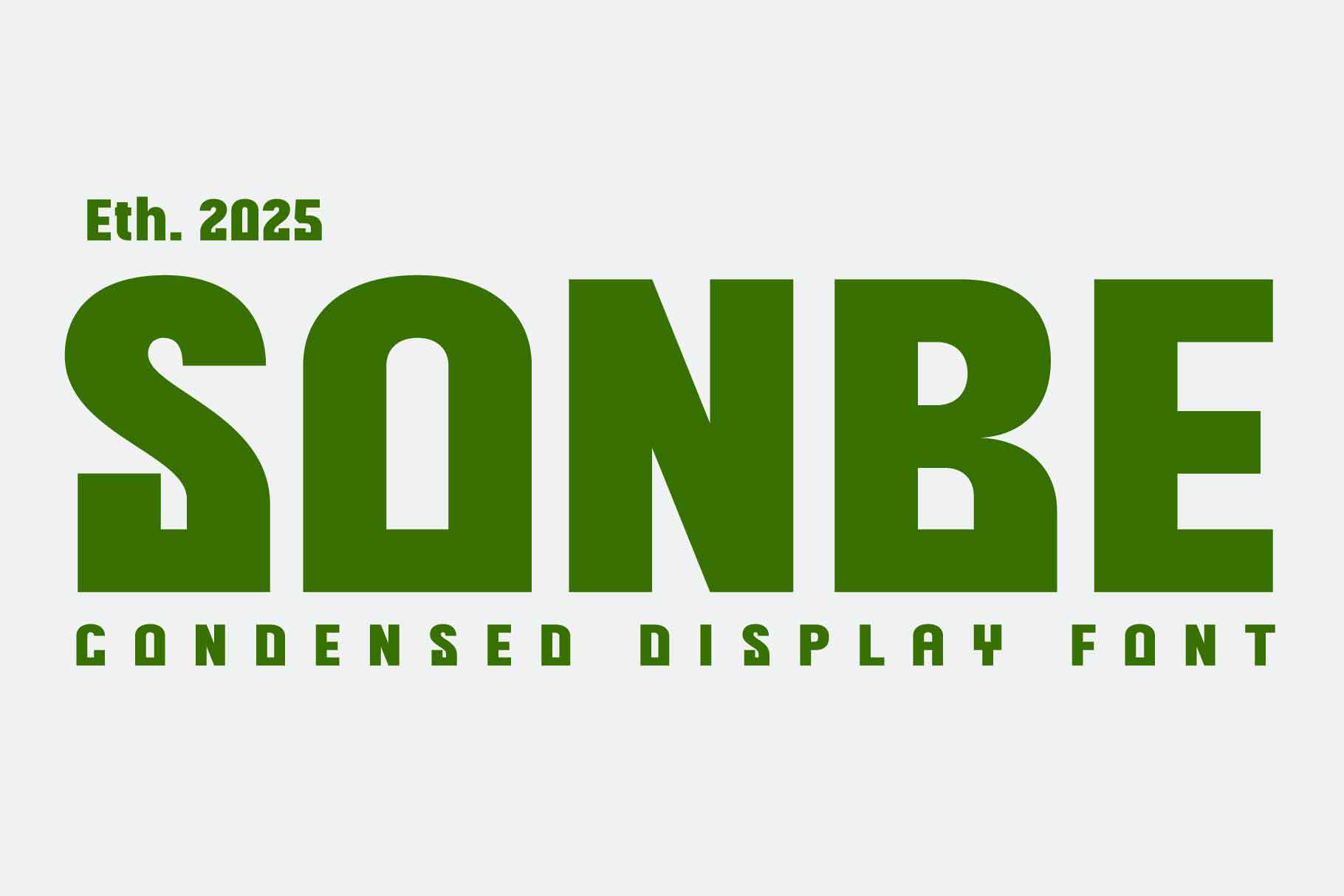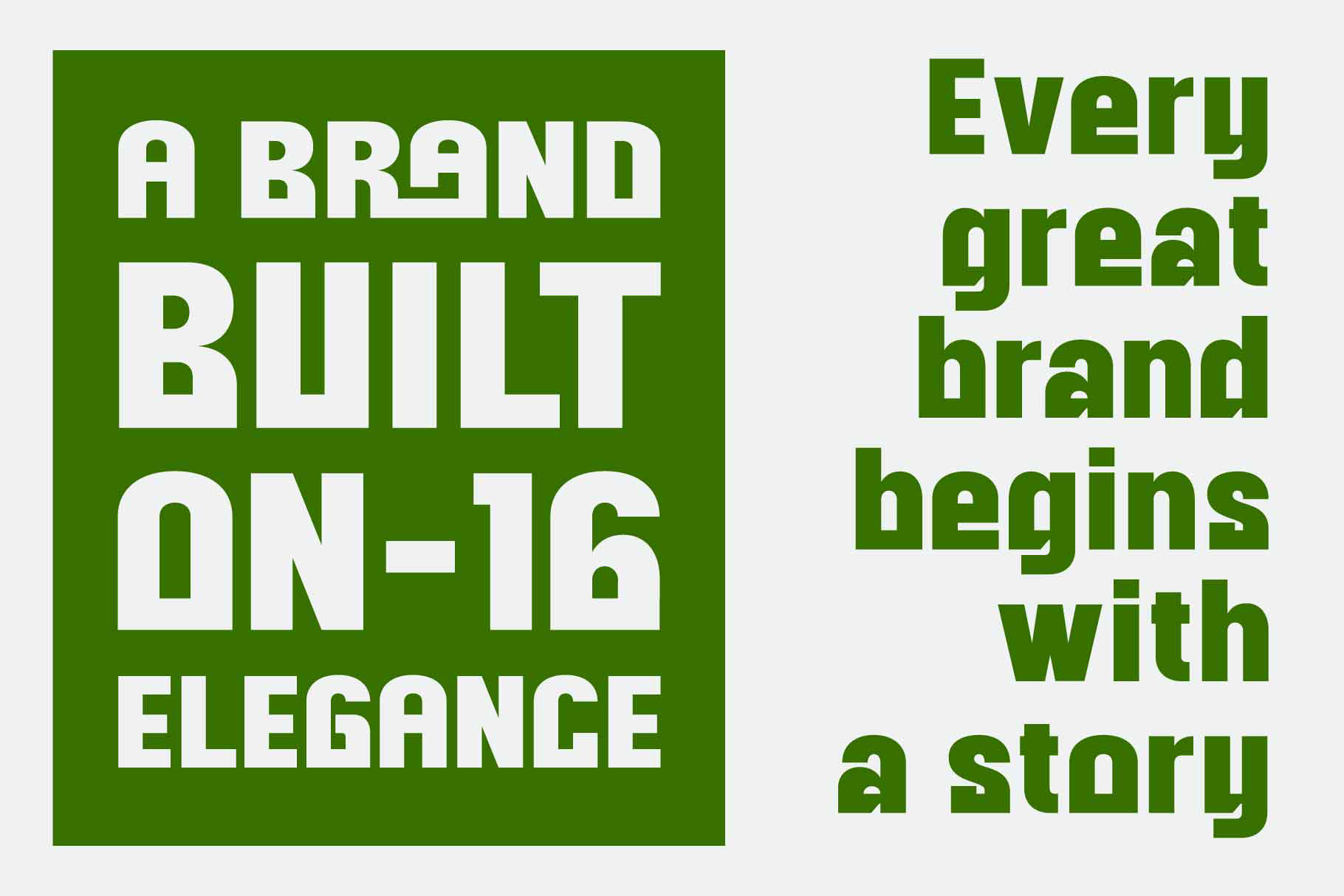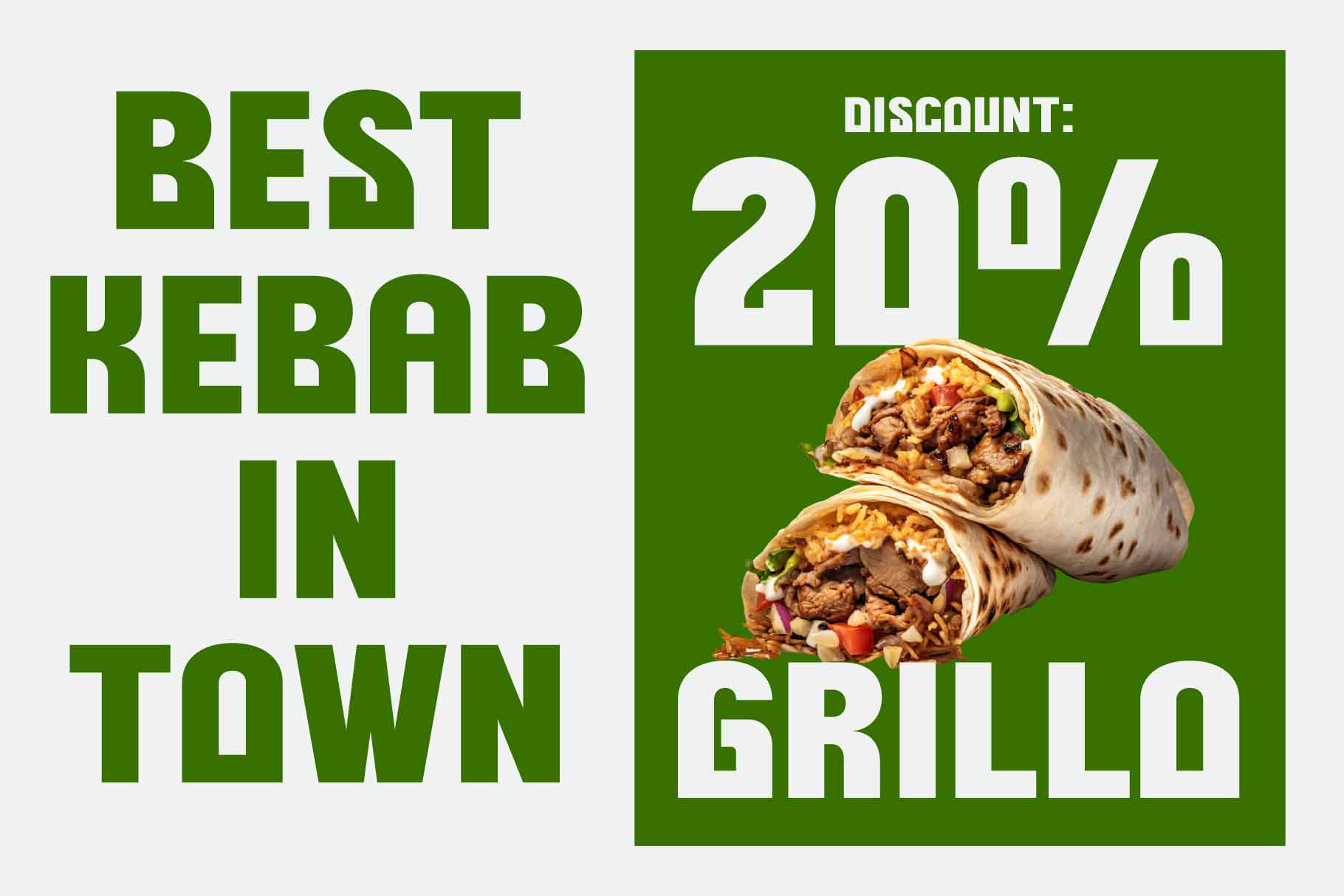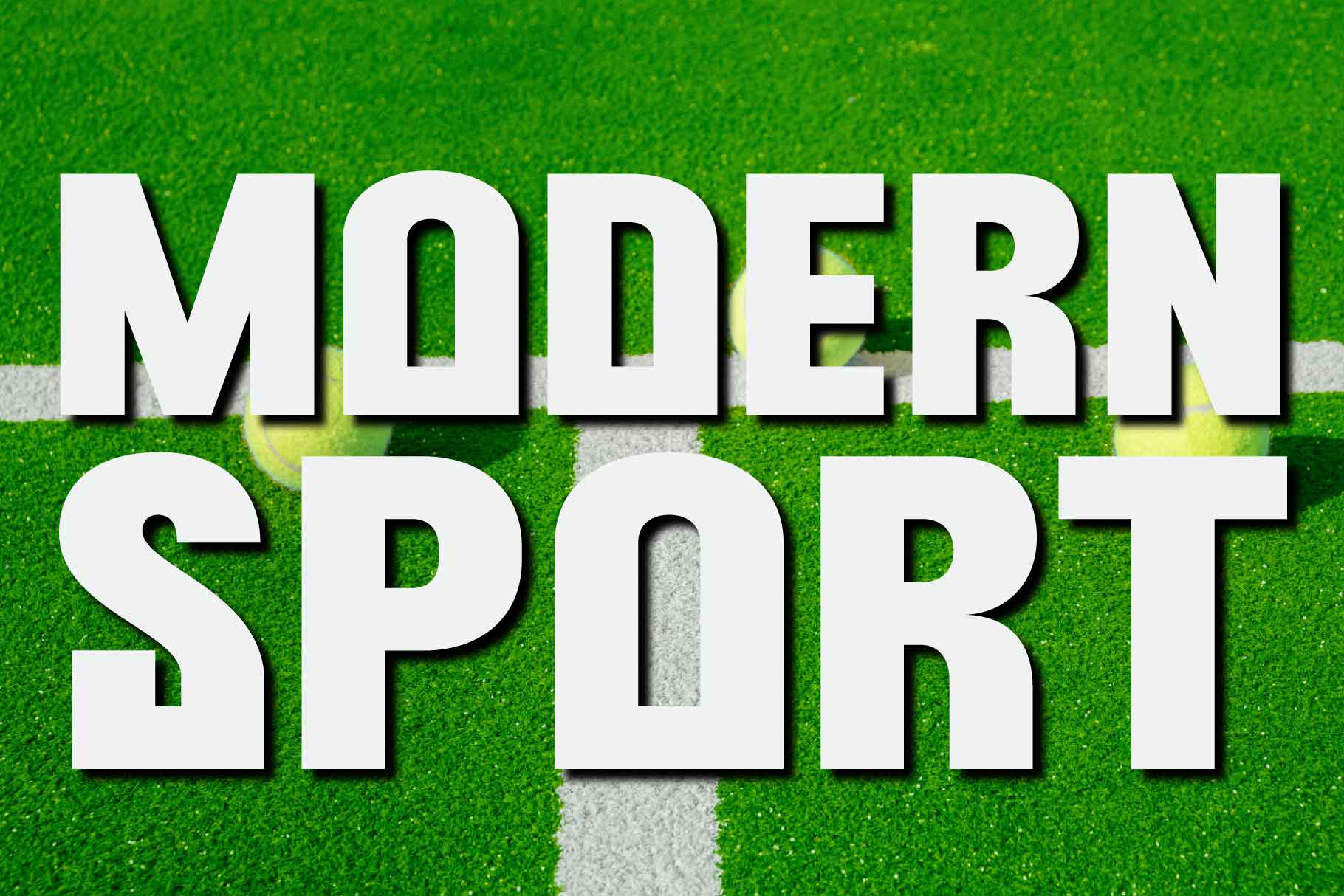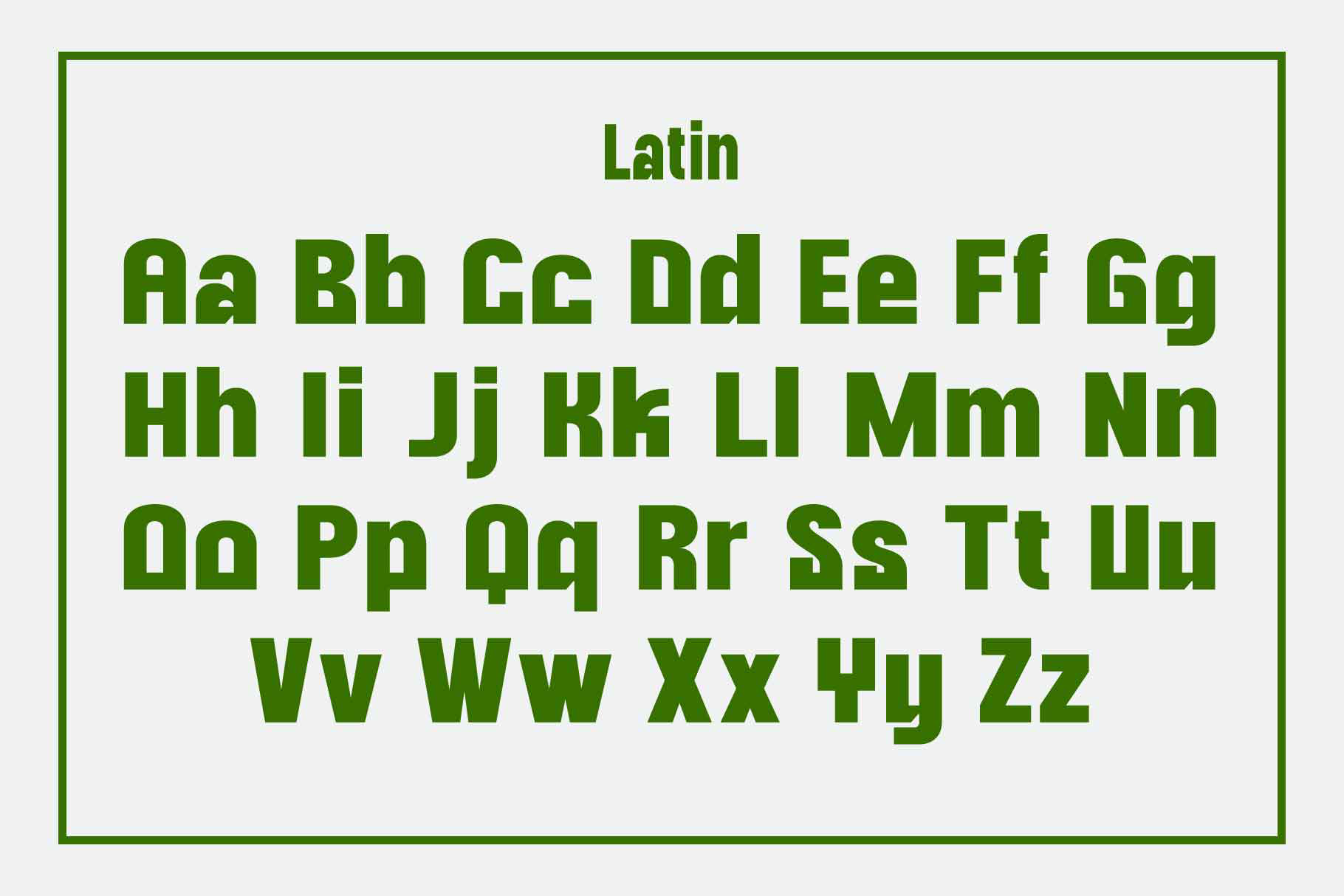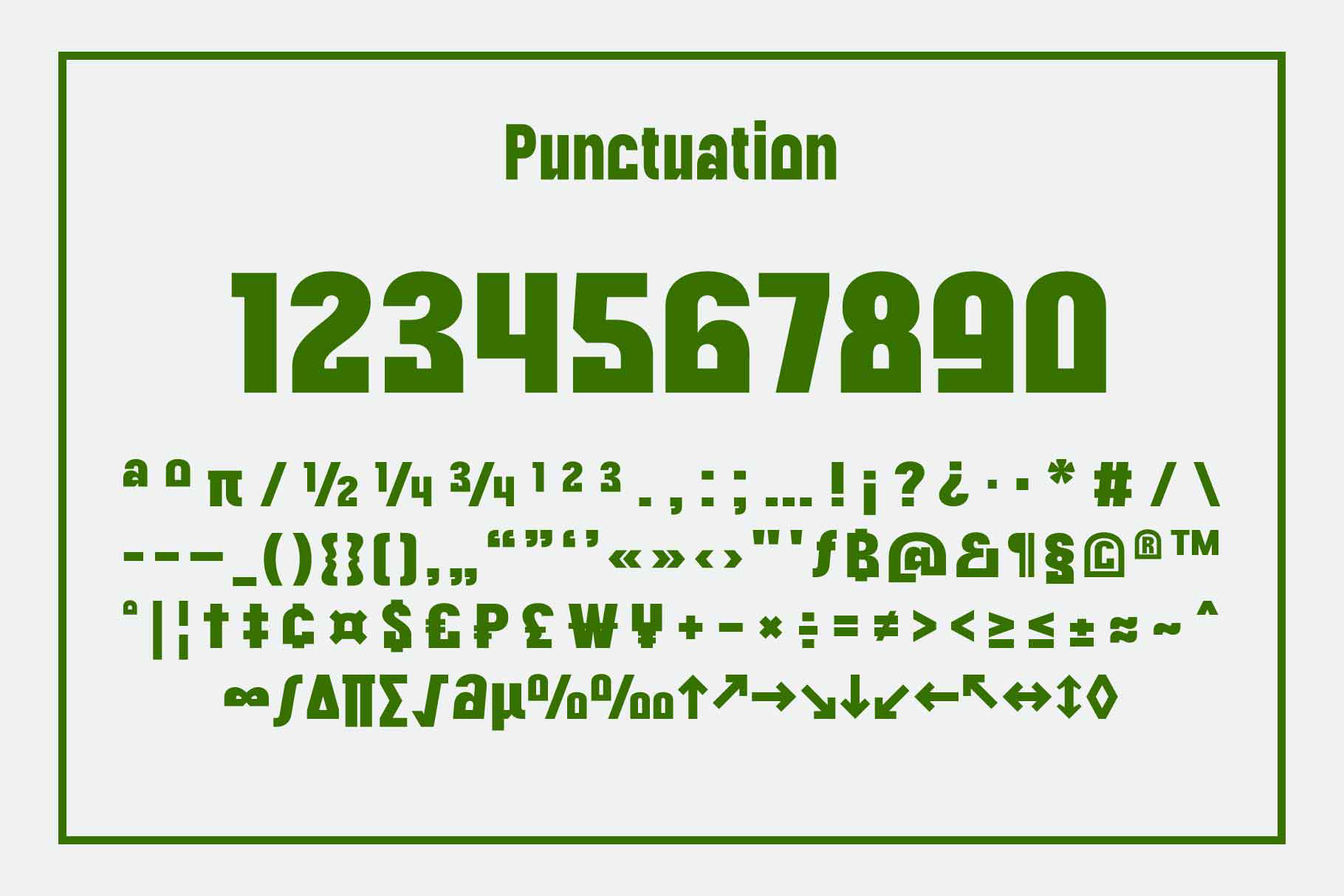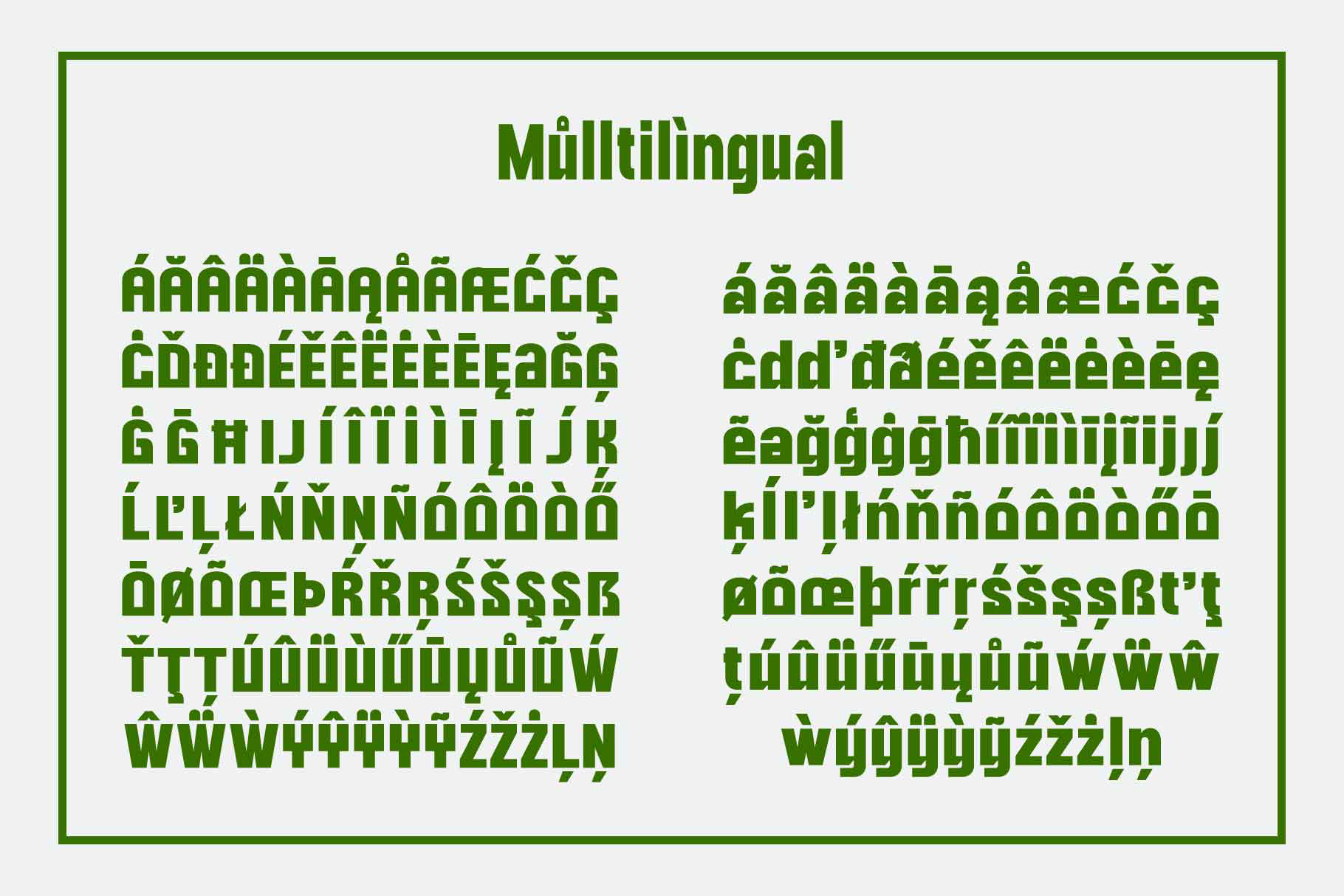
Sonbe Bold Logo Font - Ultra Condensed Display Typeface
Maximum Visual Impact for Bold Logo Designs
Sonbe is a powerhouse condensed display font designed for maximum visual impact. Its ultra-bold weight and tight tracking make it the ultimate choice for high-octane logo designs and commanding headlines. This typeface features a comprehensive glyph set as shown in the specimen, including a full range of Latin characters, numerals, and sophisticated punctuation.
A standout technical feature is its extensive multilingual support, covering hundreds of languages with precision-crafted diacritics. Whether you are crafting a sports brand identity or an industrial-style poster, Sonbe’s blocky, geometric anatomy and thick strokes ensure your message is delivered with unmatched strength and professional authority.